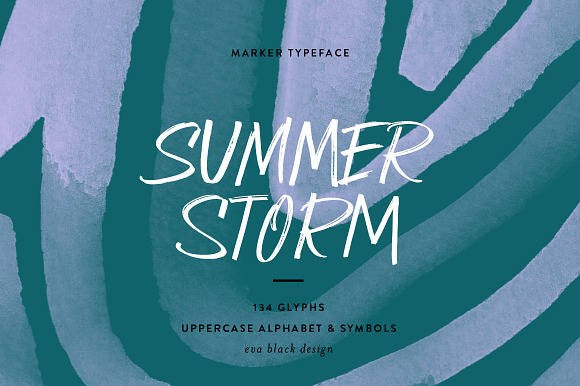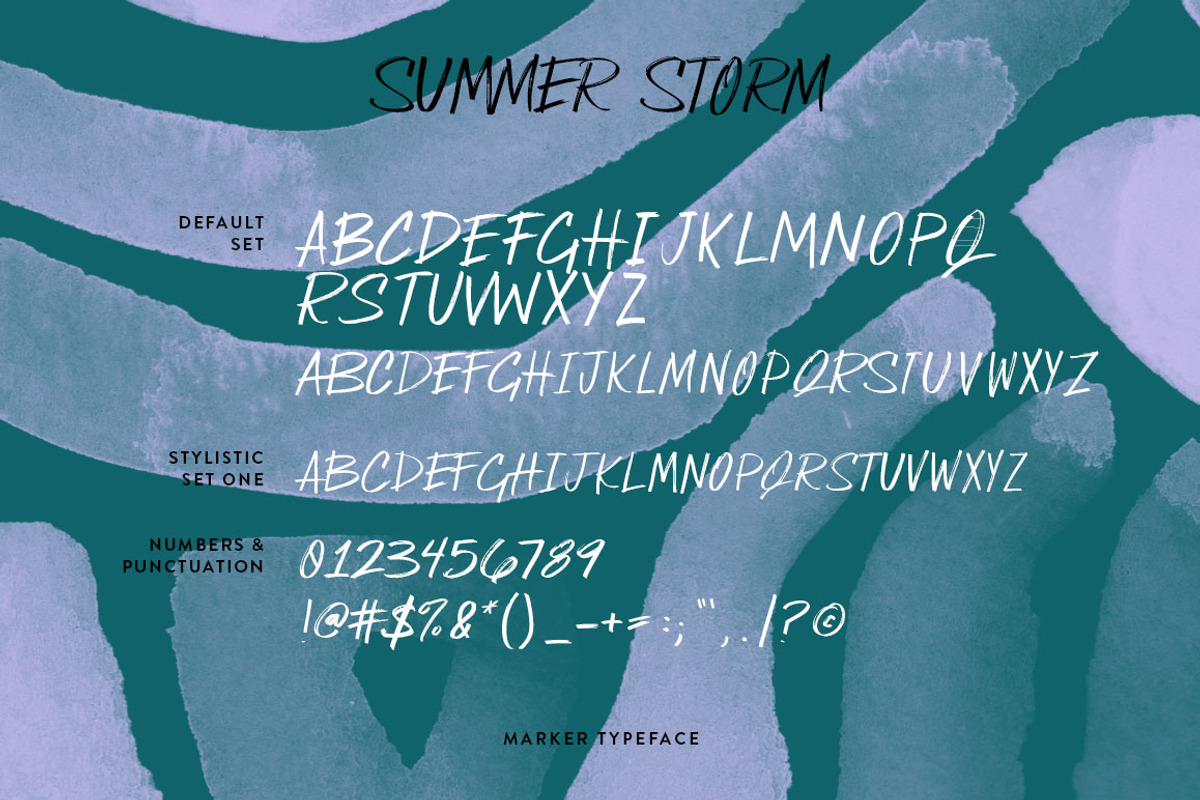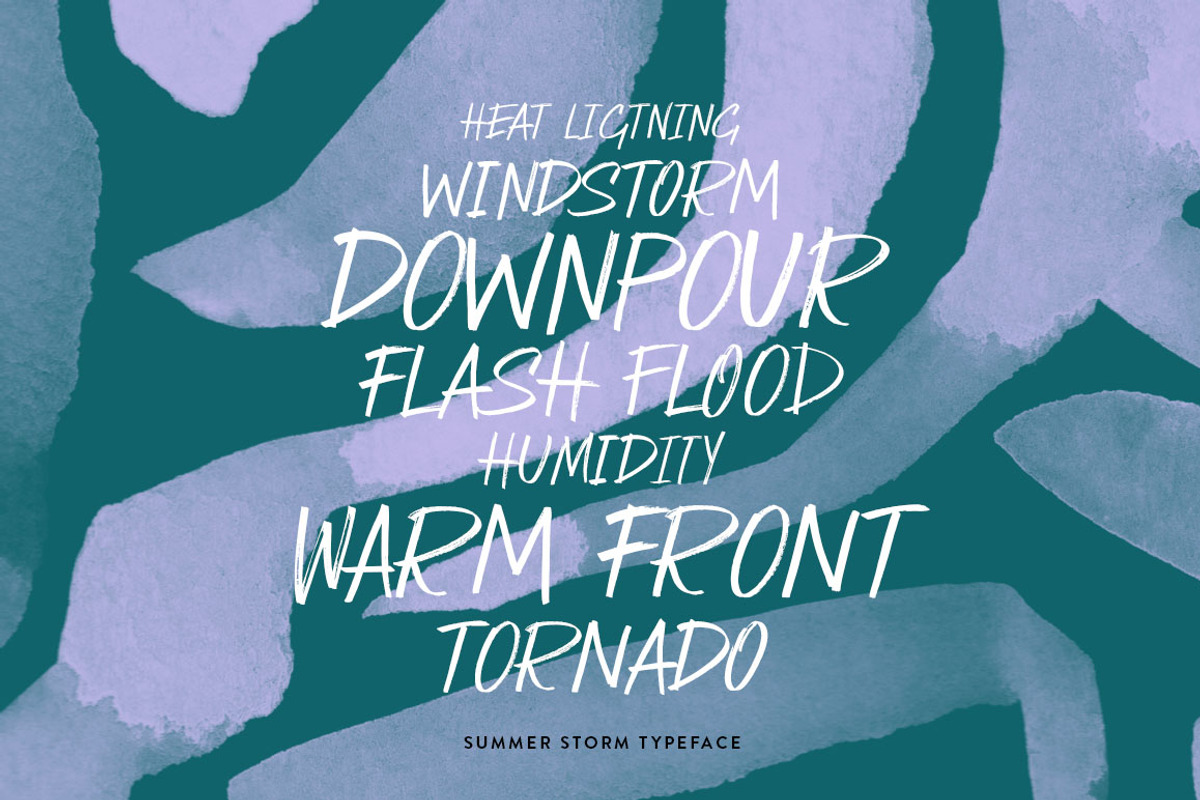
Summer Storm Marker Font
Versatile uppercase marker font with fast lines, movement, and natural texture.
Marker Uppercase Lettering Style.
Perfect for logos, invites, website headers, titles, photo overlays, etc.
Default Character Set A-Z, a-z.
Numbers & Punctuations.
Contextual & Stylistic Alternates.
All characters are uppercase style, take advantage of swapping capital and lowercase letters for even more variation.